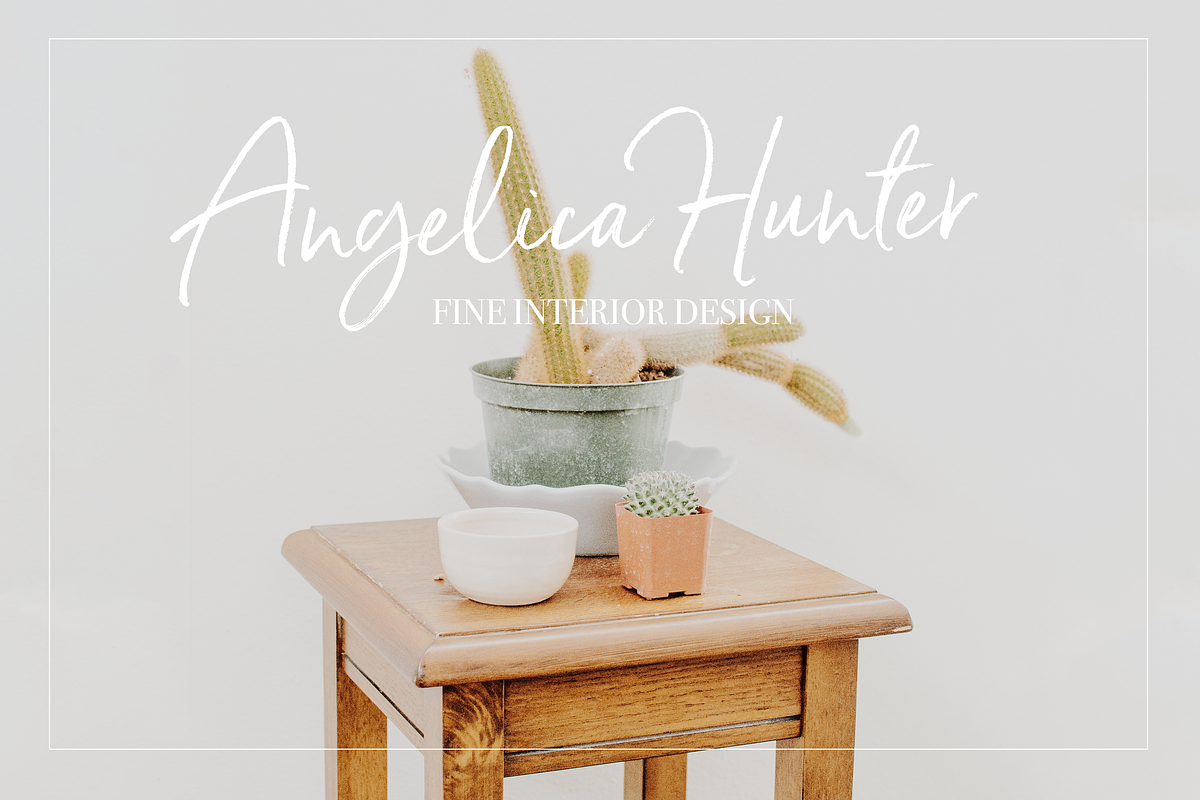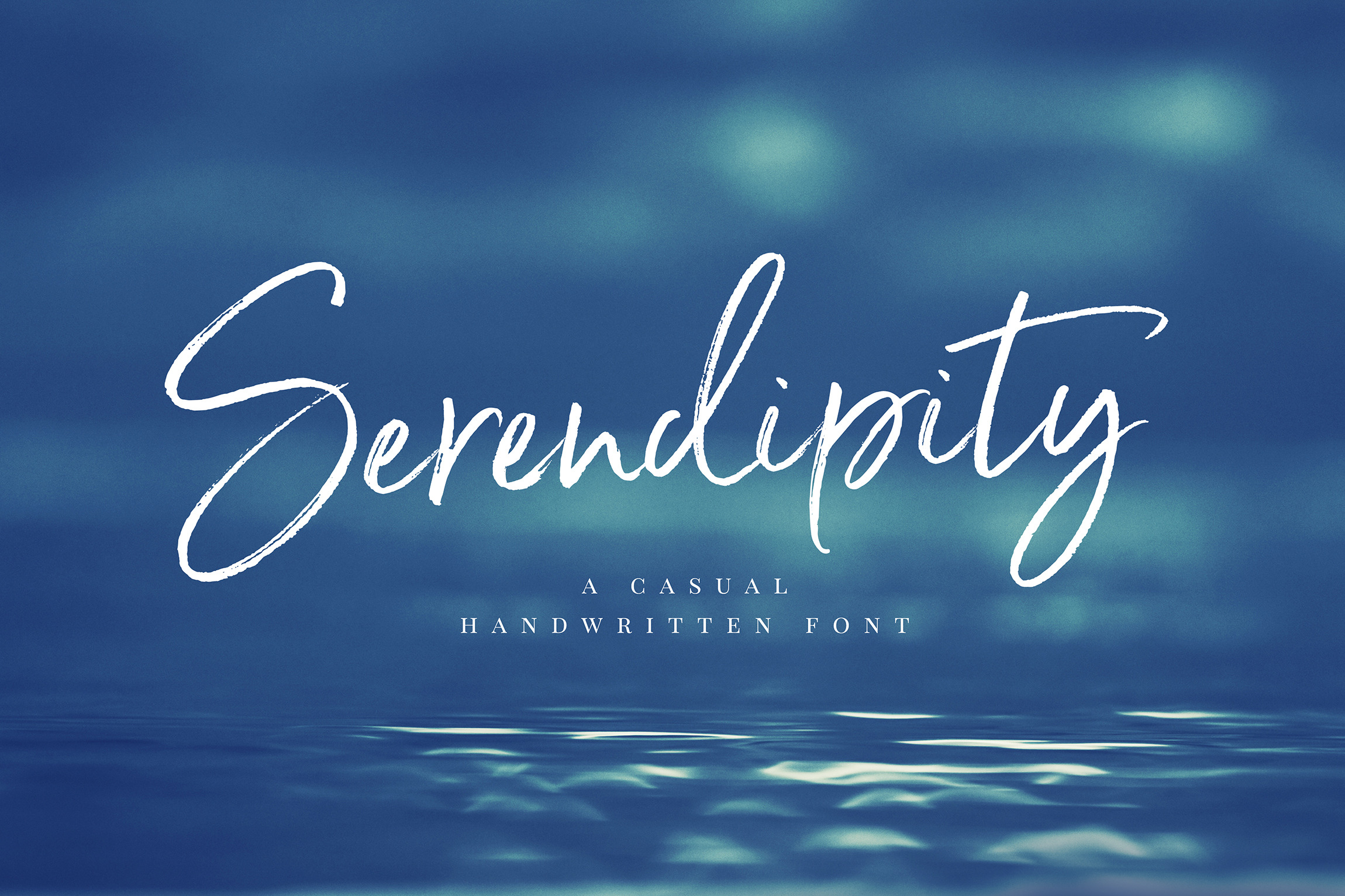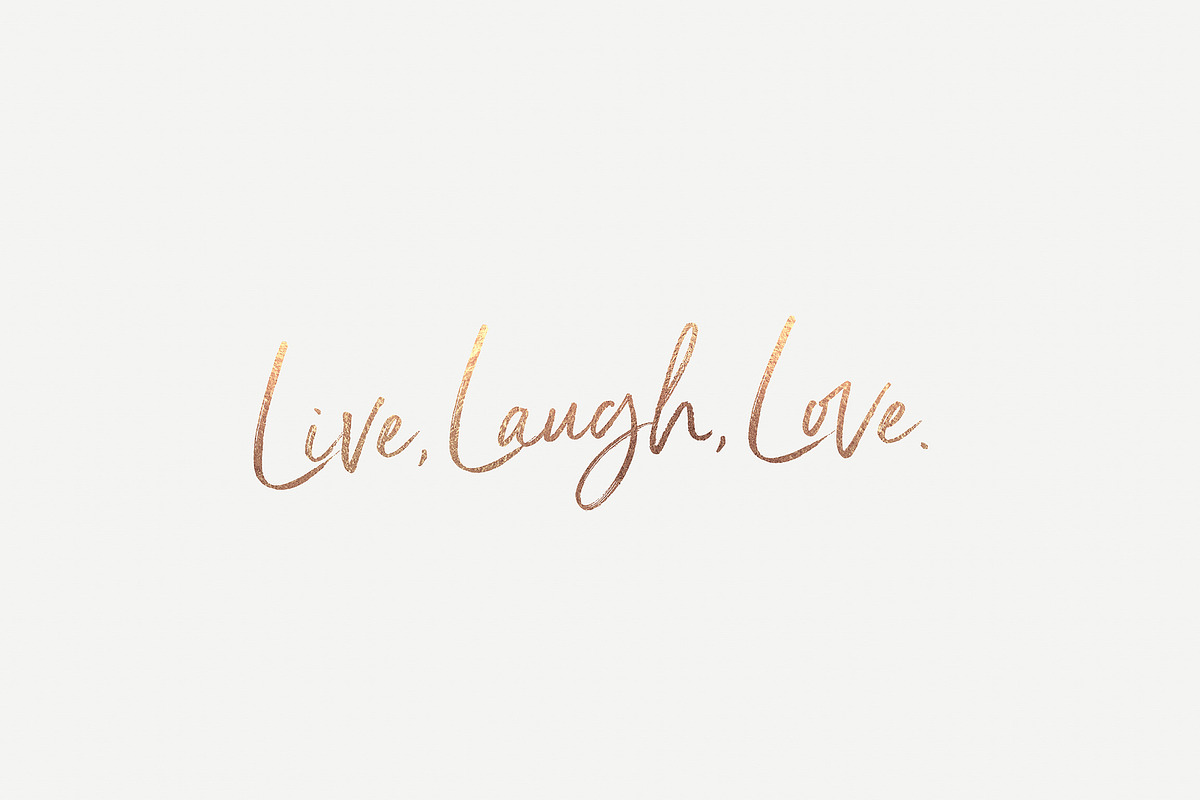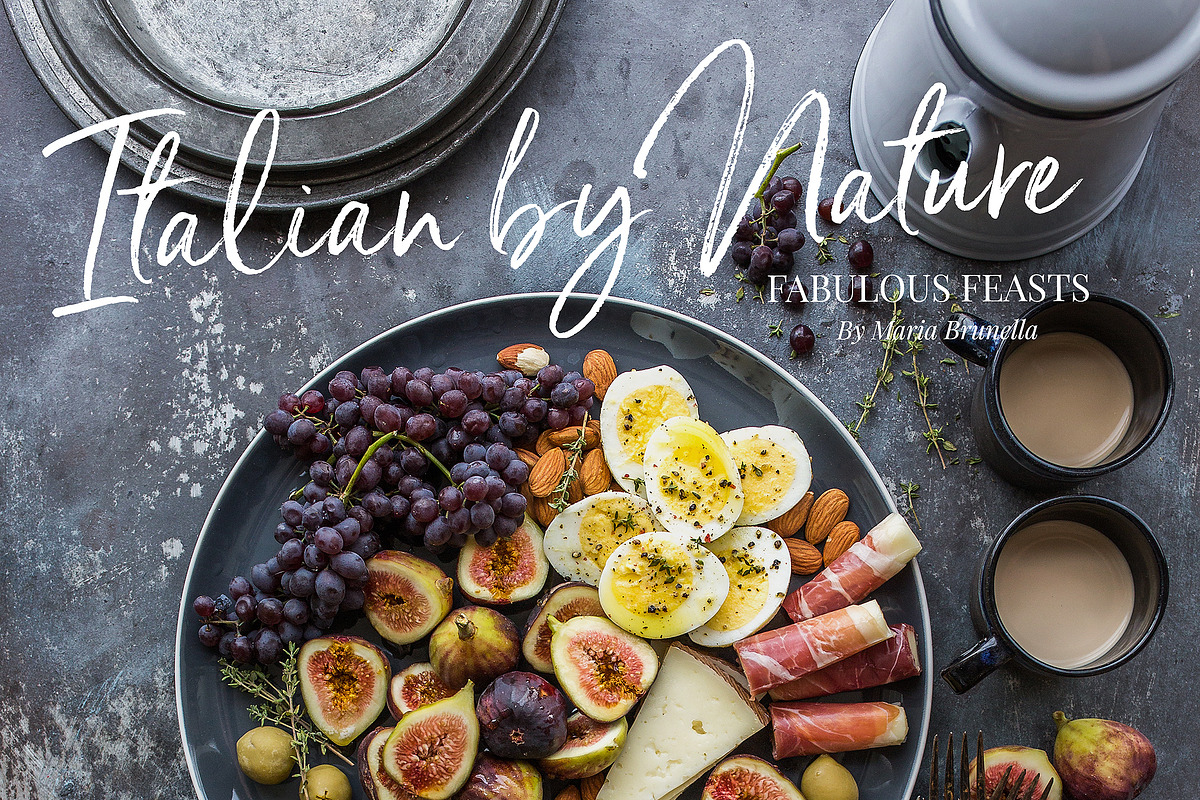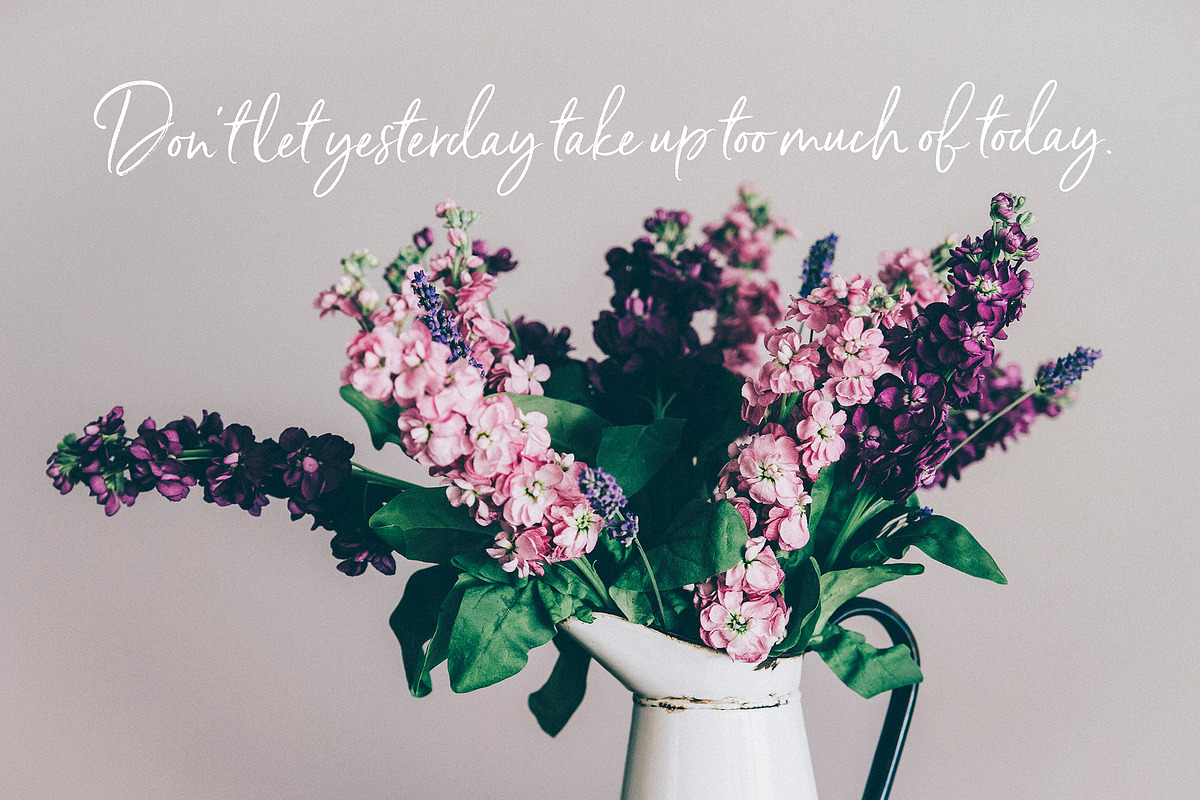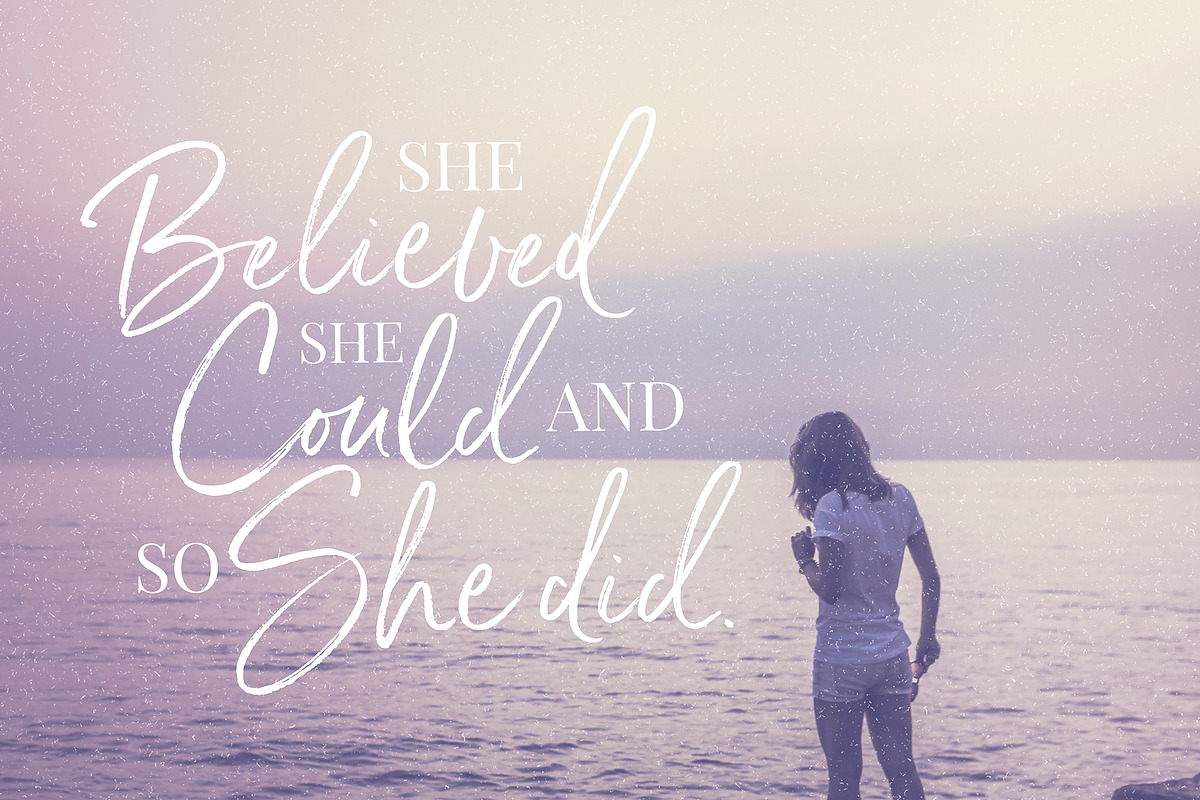
Serendipity Handwritten Font
Say hello to Serendipity - A font that you were meant to find, and is now destined to be with you :) An elegant cousin of Saturday Script, Serendipity is a lovingly handwritten brush script , with an air of grace and flamboyancy.
Serendipity is special in that one word can be written in a million different ways - thanks to the large selection of extra letters that it has built in. It comes with 2 sets of alternate lowercase letters, a set of alternate uppercase letters as well as a set of double letter ligatures - all for you to play with, and make your words look exactly how you need them to look.